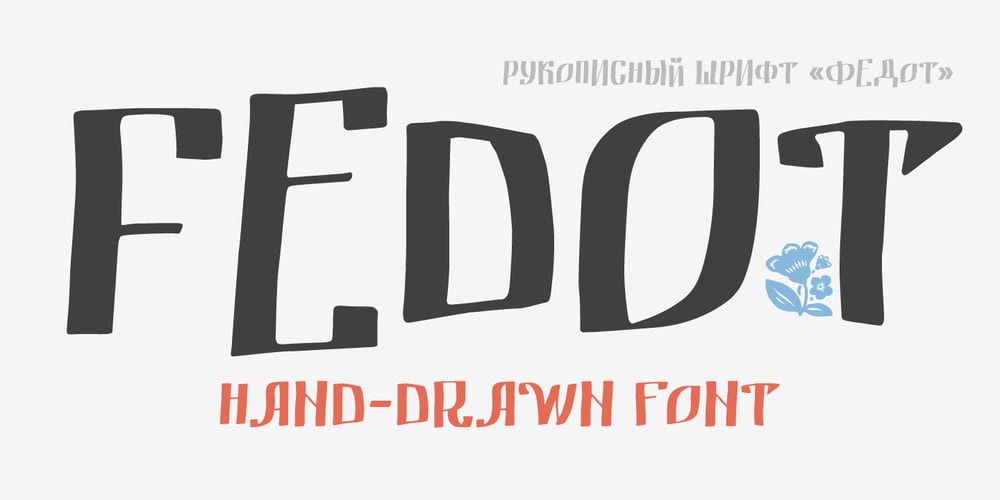
Fedot Font Family was designed by Oleg Stepanov and published by Oleg Stepanov. Fedot contains 1 styles and family package options. Fedot is a hand-drawn font, based on shapes of early cyrillic scripts (so-called “ustav” and “poluustav”). Lowercase typesetting with its variable letter heights is more brisk and authentic, and uppercase is more equable and neutral. Some of letters are the same in lowercase and uppercase.